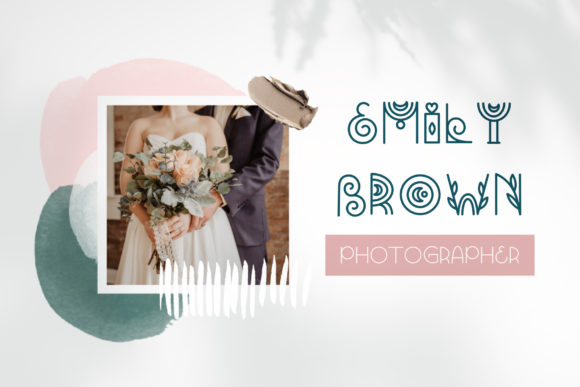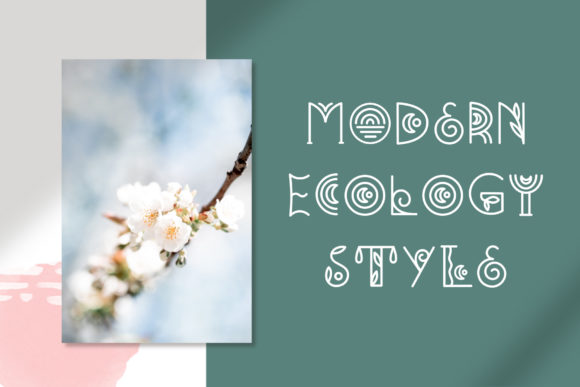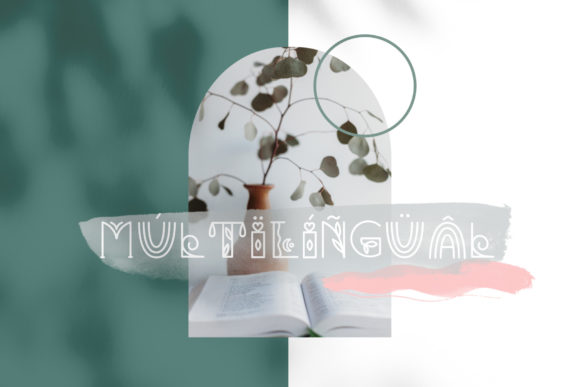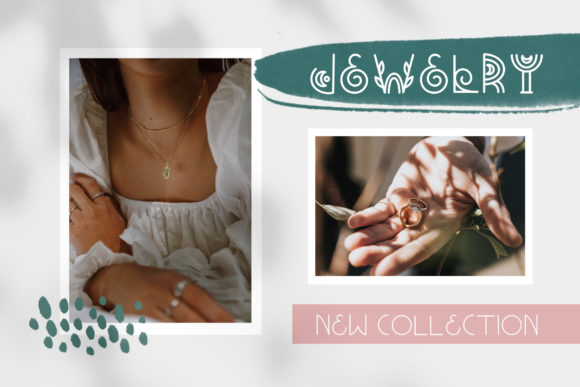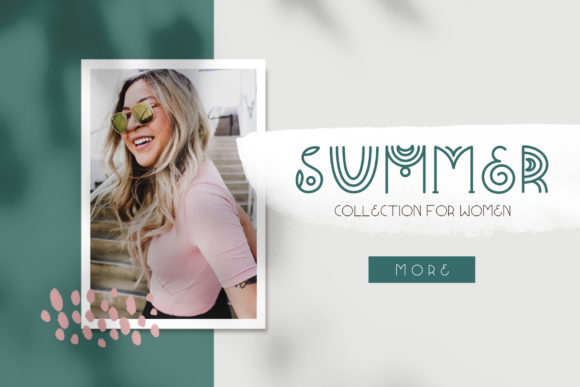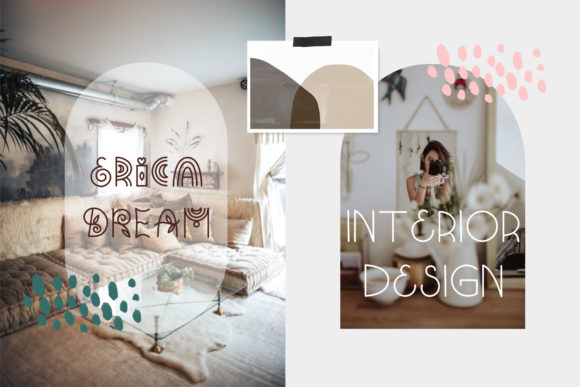
The Bohemian Font: A Designer’s Dream Come True
I’ll never forget the time I was working on a project for a client who wanted a unique and eye-catching font to match their brand’s eclectic vibe. I spent hours scouring the internet for the perfect font, but nothing seemed quite right. That was until I stumbled upon the Bohemian font. This cool, unique, and interesting looking duo decorative font has been a game-changer for my design work, and I’m excited to share its awesomeness with you! 😊
• ✨ Unique and distinctive lettering that adds a touch of personality to any design
• ✅ Highly versatile and can be used for a wide range of projects, from branding and advertising to packaging and more
• 💥 Excellent OpenType features, including glyphs and stylistic alternates, that allow for endless creative possibilities
While the Bohemian font is an amazing addition to any design project, there are a few things to keep in mind:
• ⚠️ Some of the more intricate details may not render well at smaller font sizes, so be sure to test it out before committing to a specific size
• 🤔 The font’s eclectic vibe may not be suitable for more formal or traditional designs, so use your discretion when selecting a font for a specific project
Even in Microsoft Word, the Bohemian font can add a touch of elegance and whimsy:
The Story Behind Bohemian Font
While the true story behind the Bohemian font may be a mystery, it’s easy to imagine that it was created by a free-spirited designer with a love of eclectic style and a passion for creative expression. Perhaps they were inspired by the vibrant colors and patterns of a bustling street market, or the intricate details of a vintage typewriter. Whatever the inspiration, the result is a font that’s truly one-of-a-kind.
Q: What is the Bohemian font best suited for?
A: The Bohemian font is highly versatile and can be used for a wide range of projects, from branding and advertising to packaging and more.
Q: Is the Bohemian font easy to read?
A: While the Bohemian font is certainly eye-catching, it may not be the most legible font for body text. However, it’s perfect for headings, titles, and other display text.